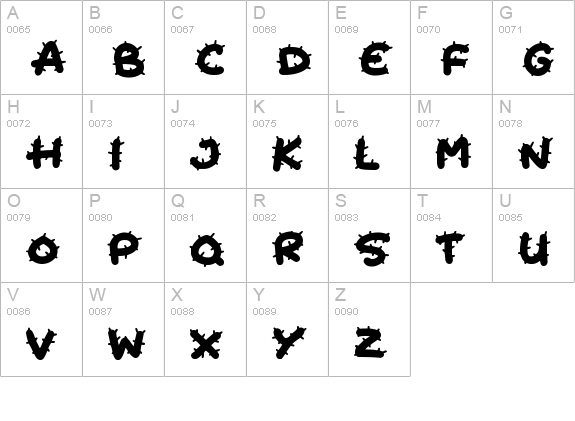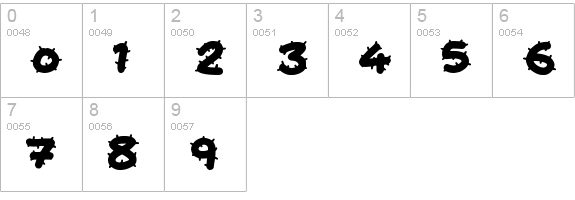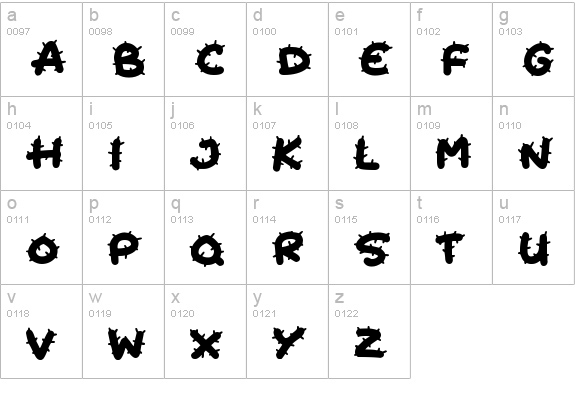
Cactus Cuties is a donationware font in the Fancy > Comic category, designed by Darrell Flood. It has been downloaded 45 times and is available for Windows, Mac and Linux.
Introducing the charming and playful Cactus Cuties font! This whimsical typeface is perfect for adding a touch of fun and personality to your designs. Inspired by the unique shapes and textures of cacti, Cactus Cuties features quirky, hand-drawn letterforms that exude a sense of warmth and friendliness.
Whether you're creating greeting cards, invitations, posters, or branding materials, this font is sure to make your projects stand out. Its versatile style makes it suitable for a wide range of design applications, from children's books to party decorations to social media graphics.